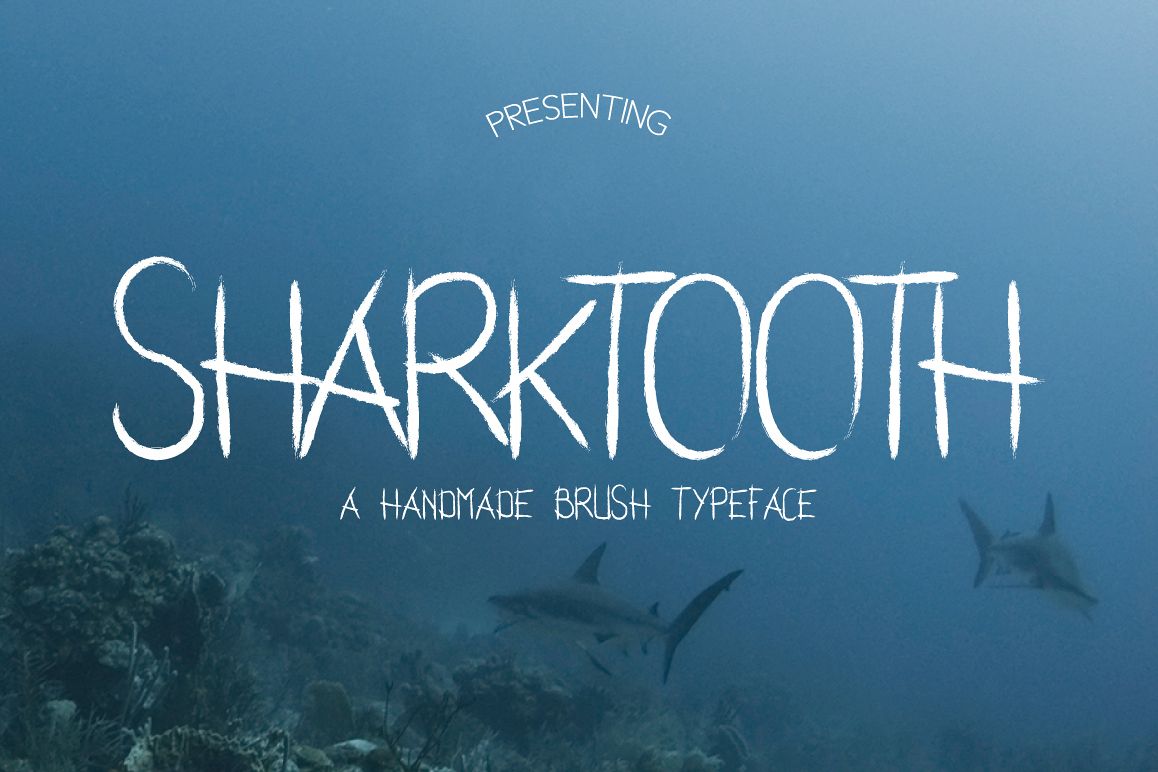
Introducing "Sharktooth Handmade Brush Typeface"
Can be used for various purposes namely headings, logos, wedding
invitations, t-shirts, letterheads, signages, labels, news, posters,
badges etc.